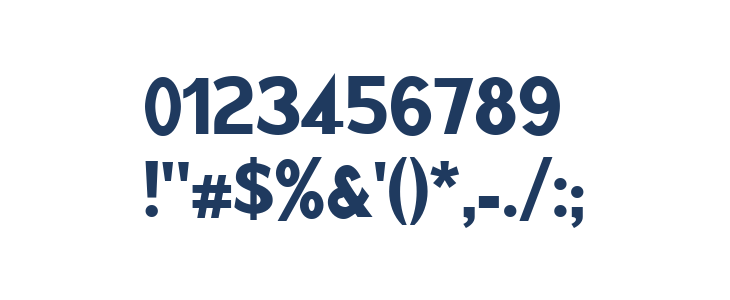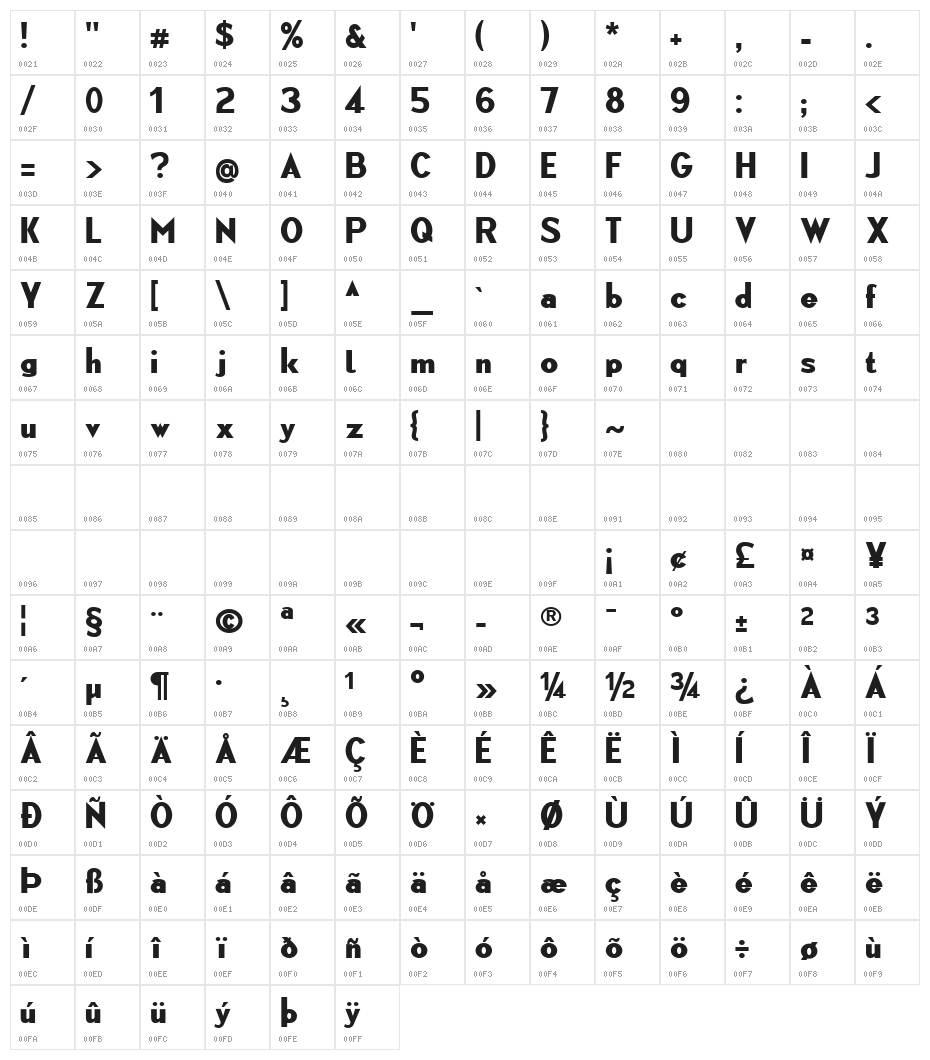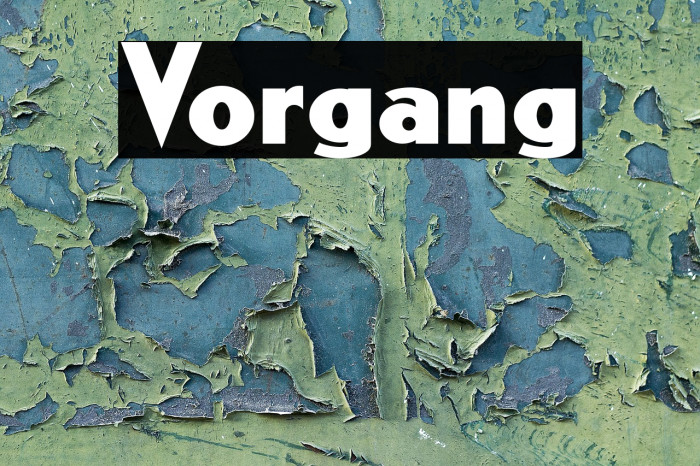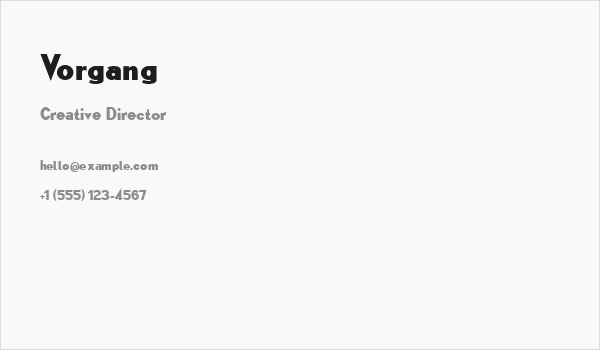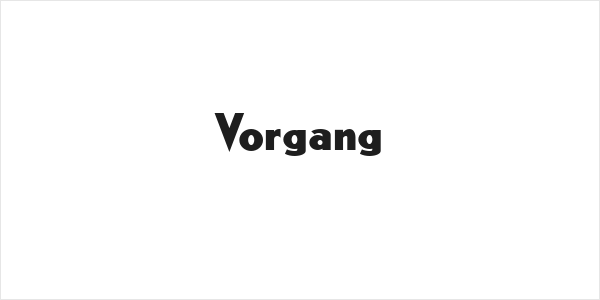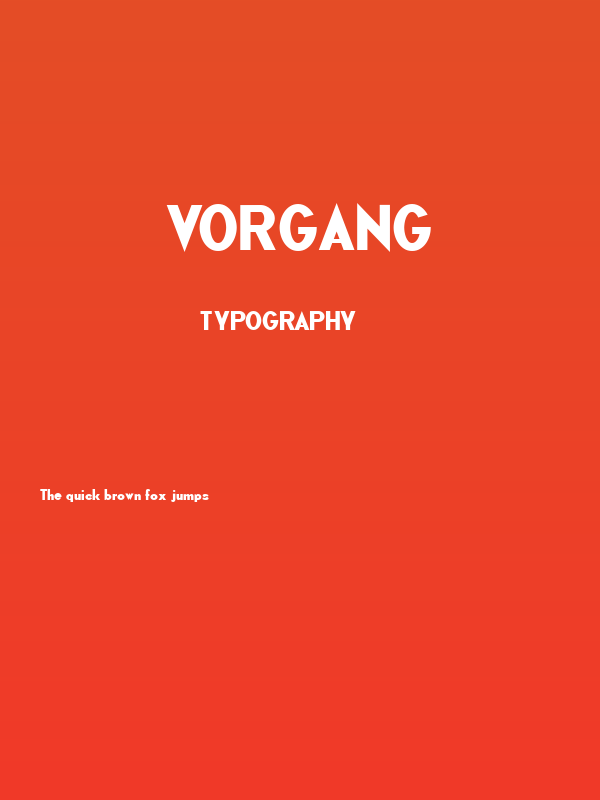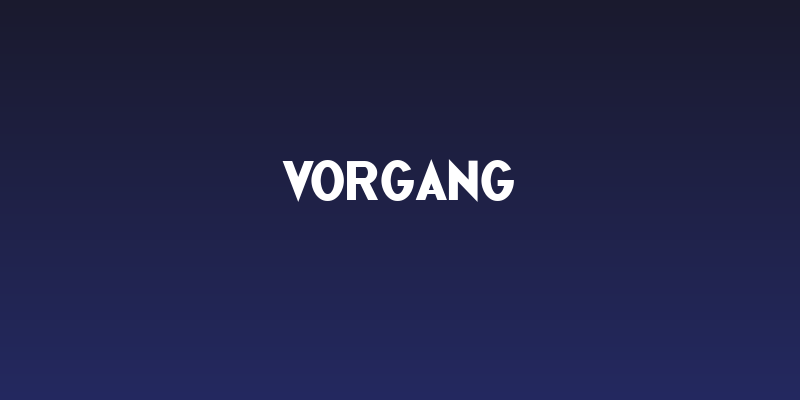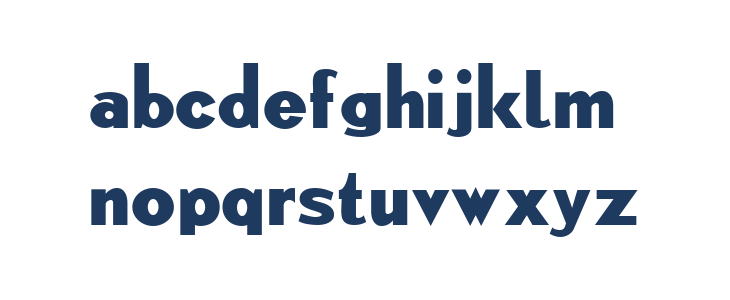
Vorgang Font
Vorgang Description
This font features bold, geometric letterforms with a strong presence. The uppercase letters are uniform in height and width, creating a cohesive and balanced appearance. The lowercase letters maintain a similar geometric style, with rounded edges that add a touch of softness to the otherwise robust design. Numbers are clear and legible, matching the boldness of the alphabet. Special characters are well-integrated, ensuring consistency across all glyphs. The overall design is modern and versatile, suitable for a wide range of applications.
| Use Case | Headlines, Logos, Branding |
| Proposed Projects | Ideal for branding, advertising, headlines, and digital media projects. |